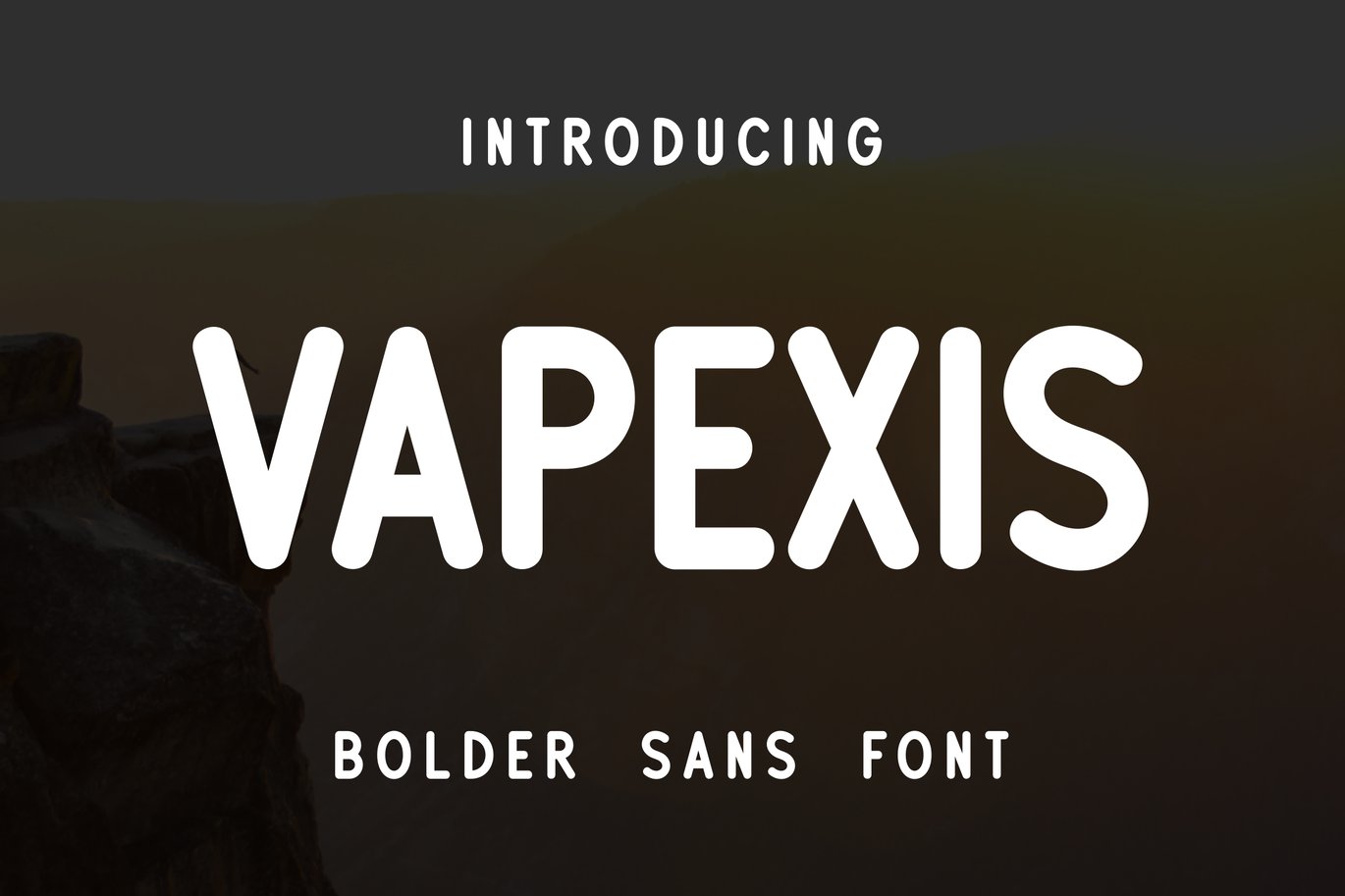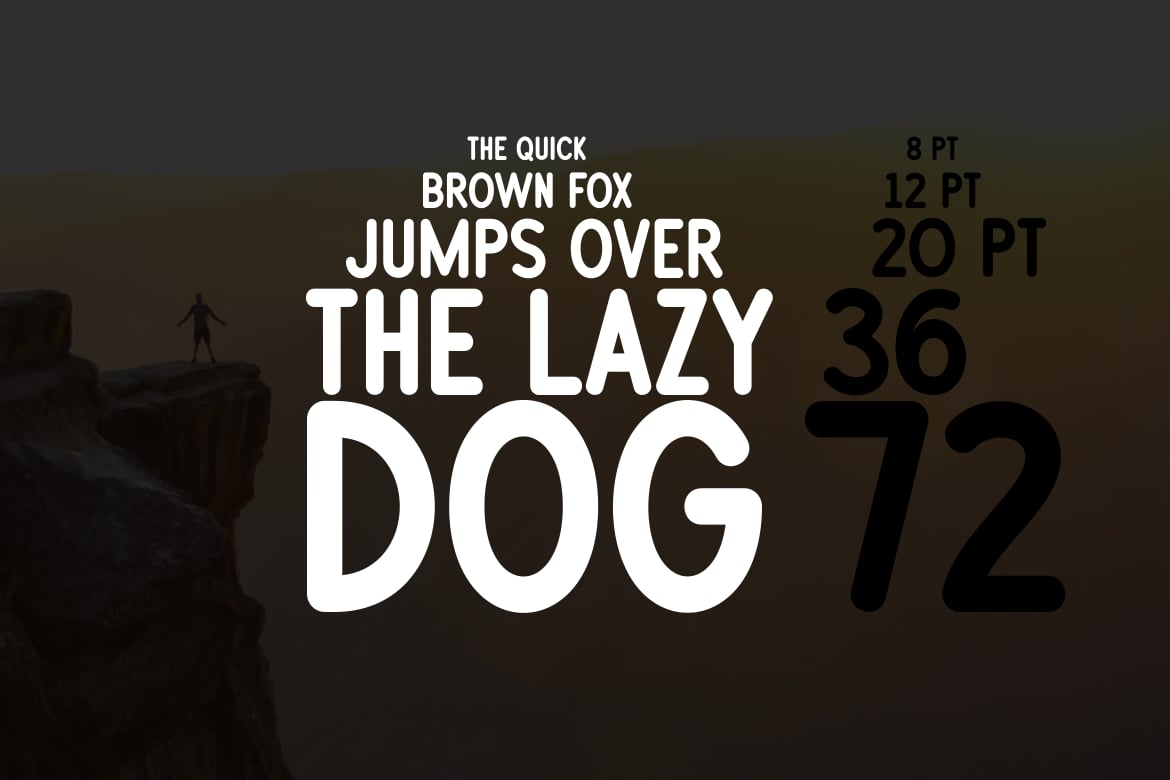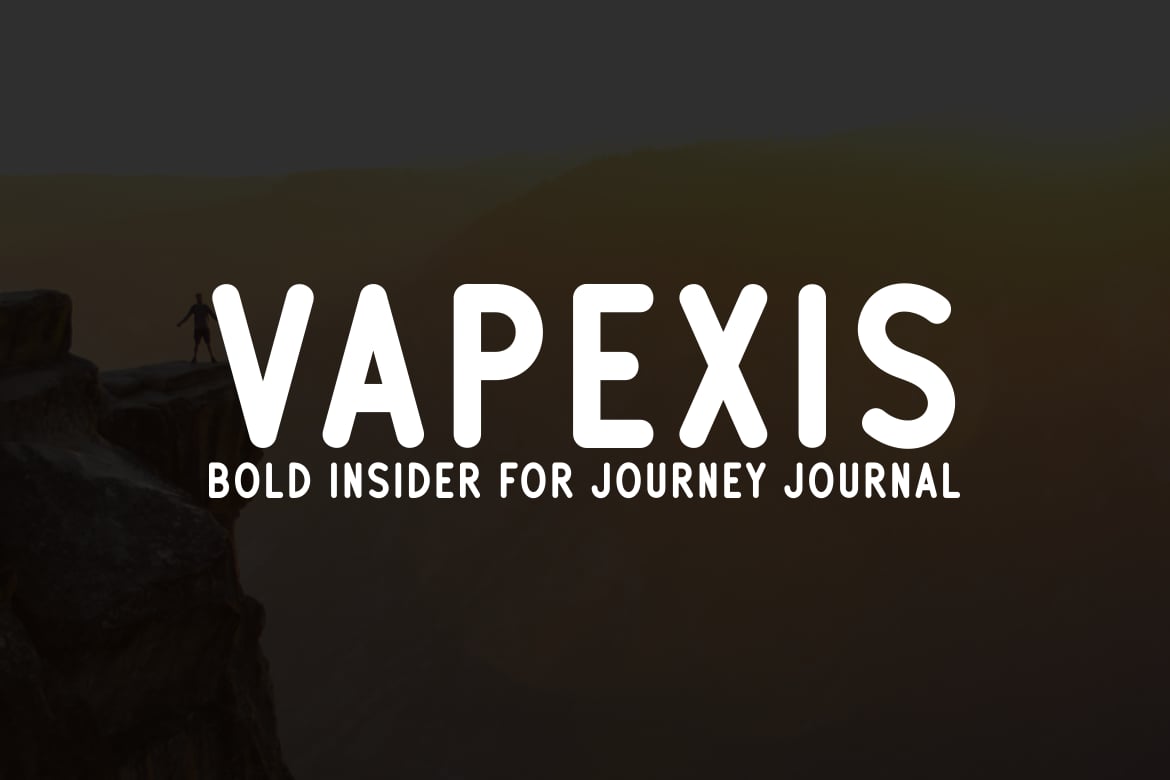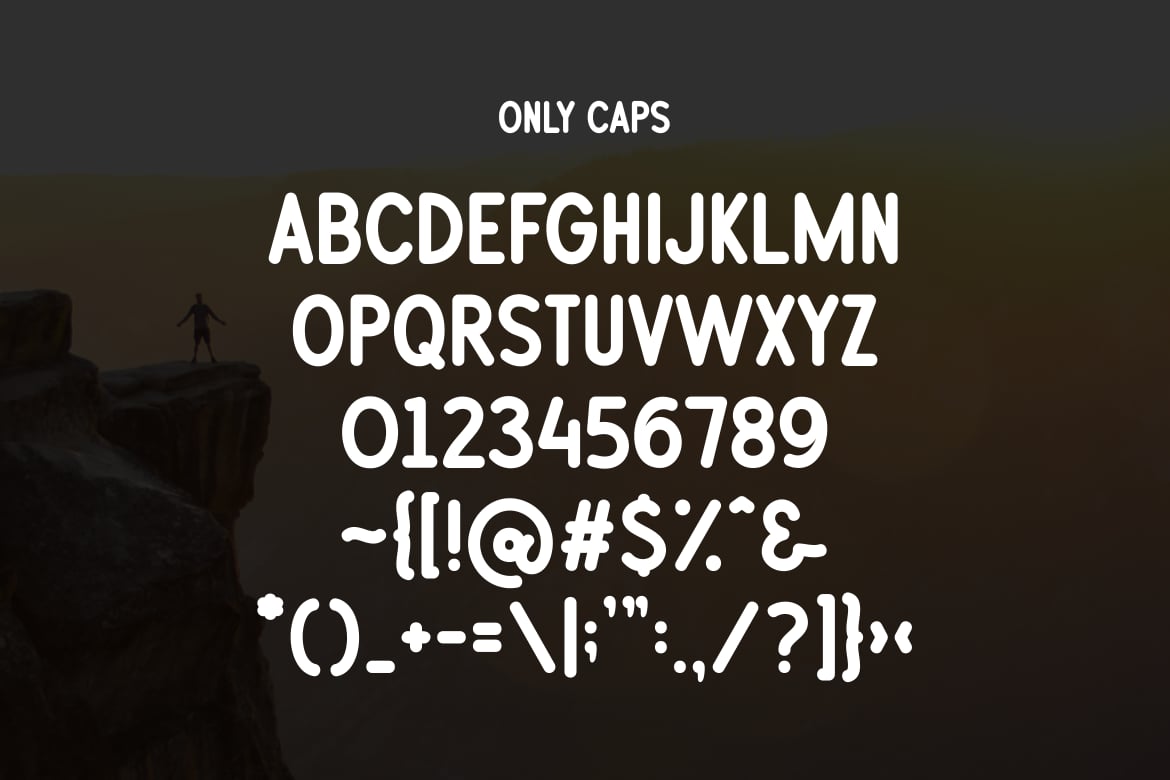
Vapexis Font
A thick round font that is a bit tall, usually for titles that might be appropriate for heights. such as climbing, long areca palms, exploring the forest, rock climbing, and things related to that.